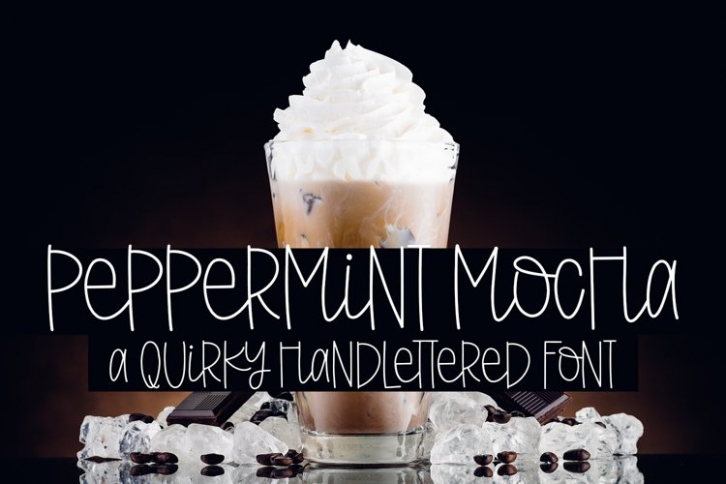
Peppermint Mocha is a trendy and unique font with an authentic style. It was designed by plusstore and it's a great choice for creative people who need such a font. It was released on December 11, 2021 and the file size is 9.86 MB. Peppermint Mocha will add an organic vibe to any design idea!